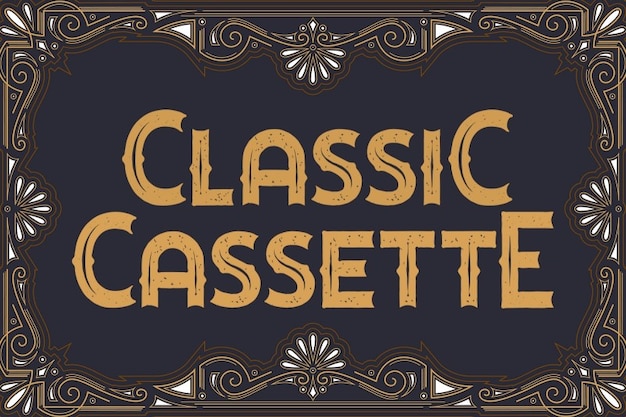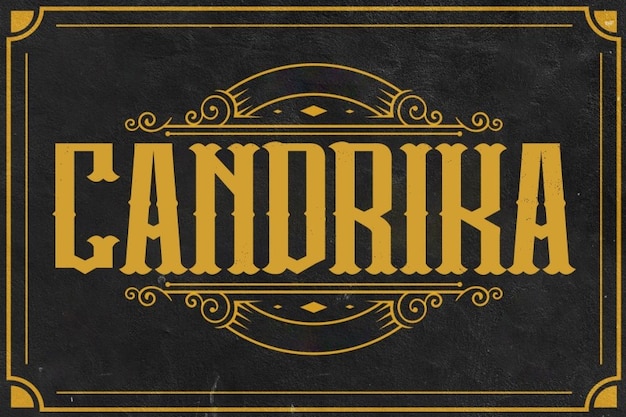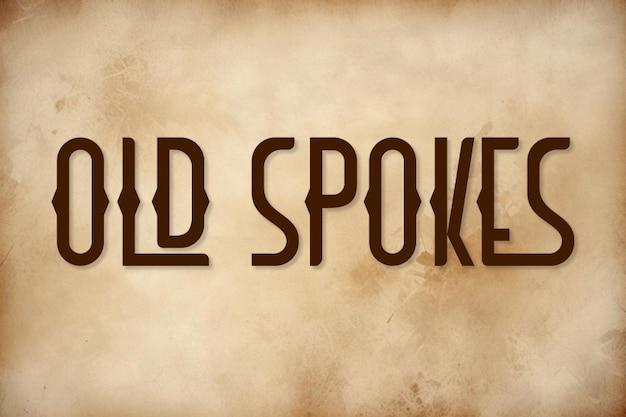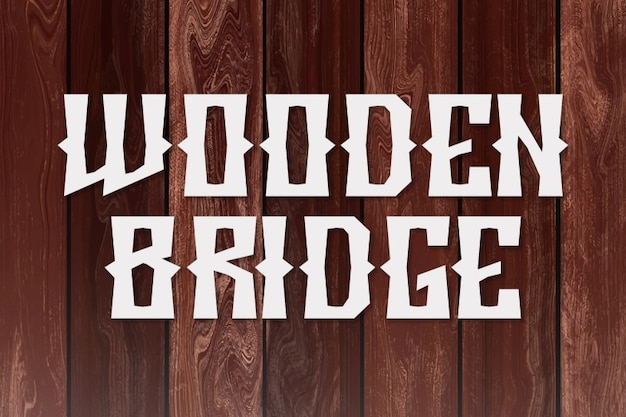
Whiskey Label fonts
It is a refined, vintage-inspired font perfect for capturing the classic elegance of traditional whiskey bottle labels. With its sophisticated curves and old-world charm, it's ideal for branding, packaging, and event invitations, evoking a sense of heritage and craftsmanship.